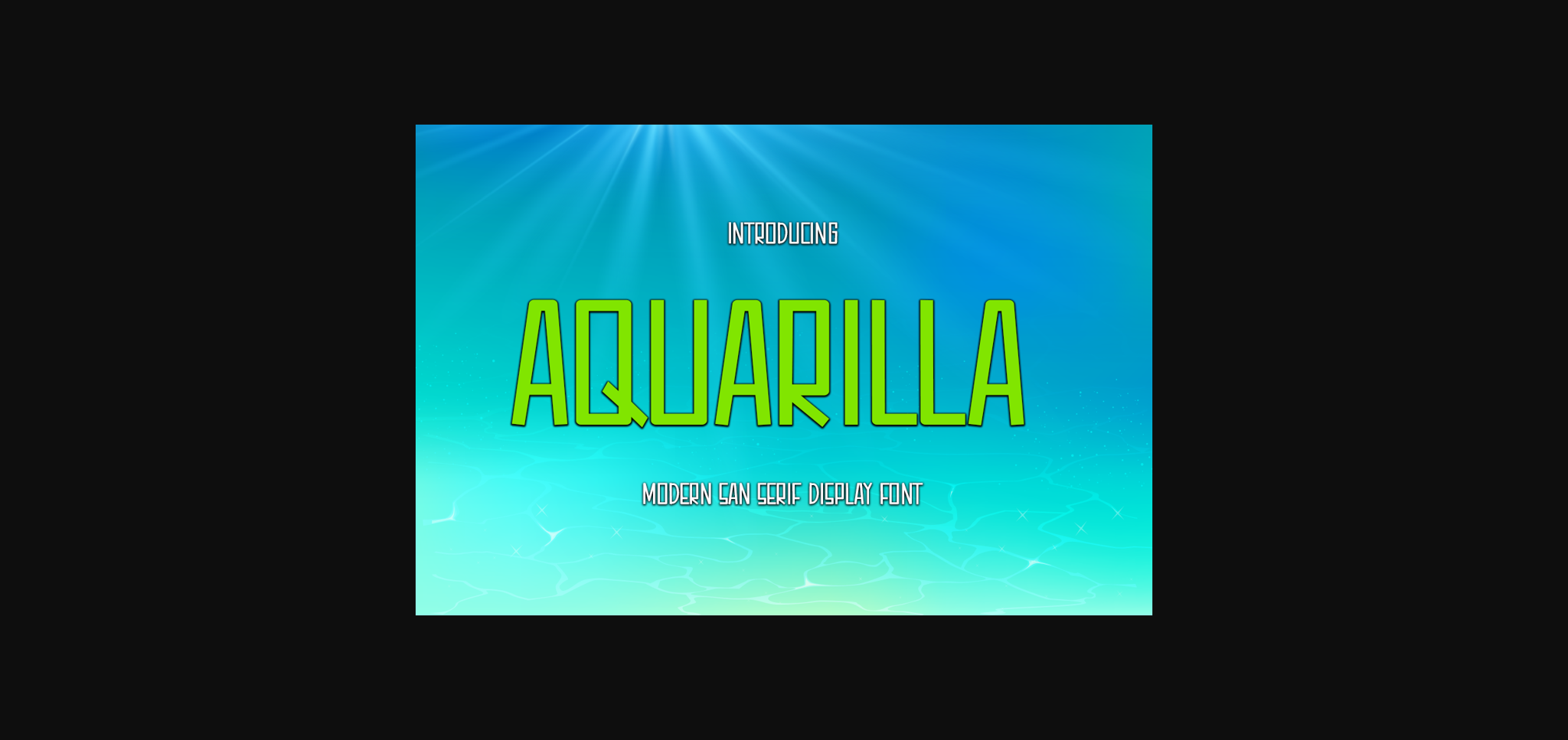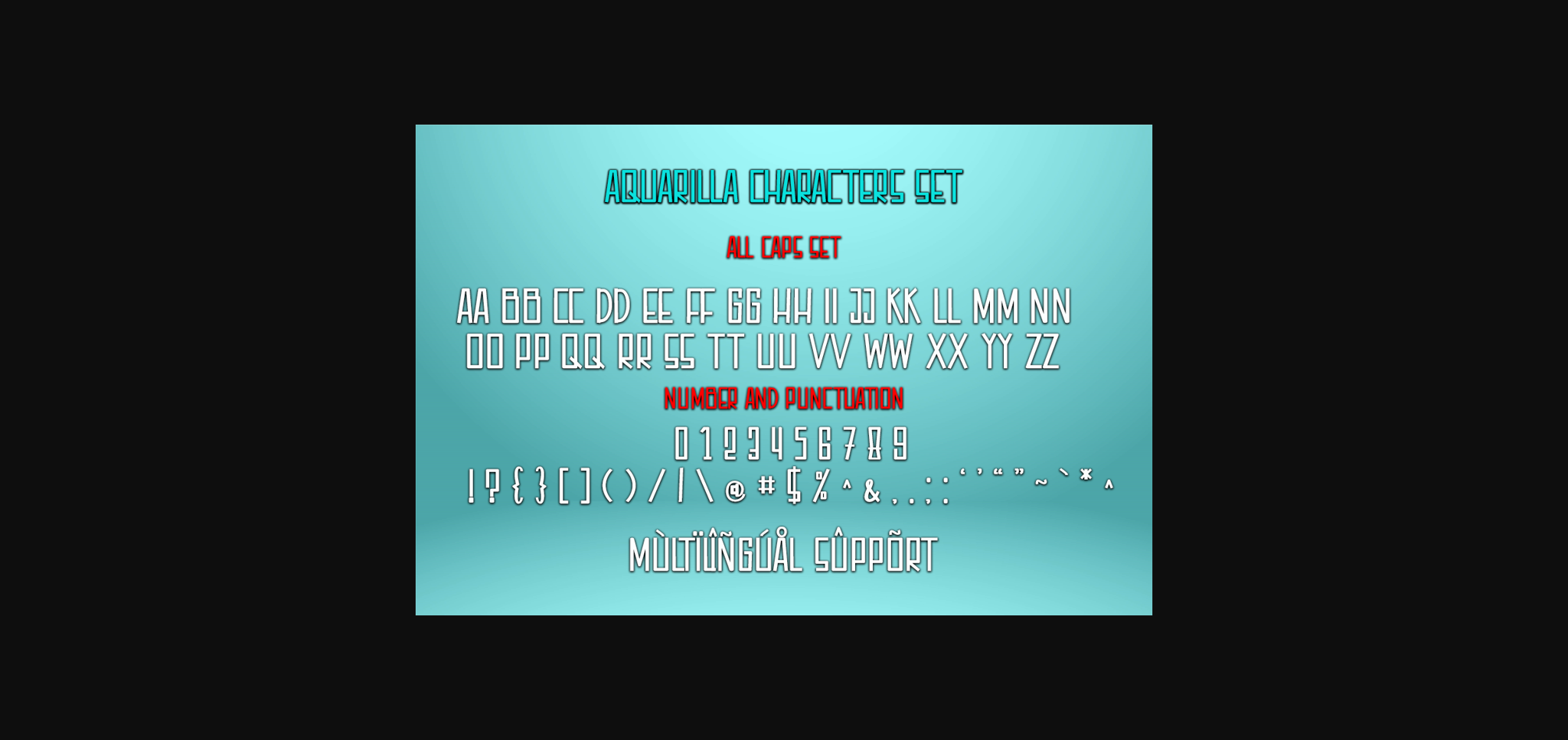
About Aquarilla Font
Aquarilla is a sweet and friendly sans serif font. Its natural and clean style makes it incredibly fitting to a large pool of designs. This original look will appeal to a wide range of crafty ideas, from letterheads and titles, to stationery.